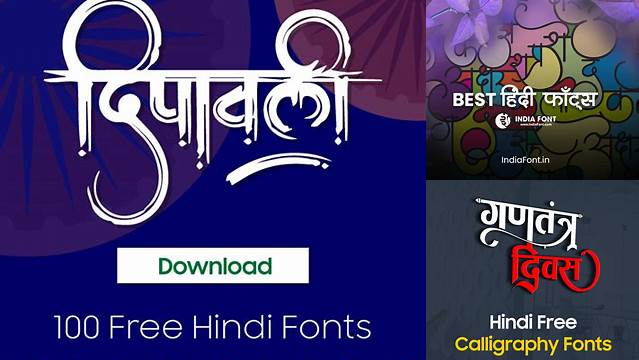
Download Free Hindi Fonts: Your Ultimate Guide
Hey guys! So, you're looking for some awesome free Hindi fonts to spice up your projects, right? You've come to the right place! Whether you're a designer, a student, or just someone who loves to dabble in Hindi, finding the perfect font can make all the difference. This guide is all about helping you find and download the best free Hindi fonts available. We'll explore a variety of styles, from traditional to modern, ensuring you find something that fits your needs. No more boring text! Let's dive in and discover the world of beautiful, free Hindi typography. Getting started with free Hindi fonts can seem daunting, but trust me, it's a breeze. I'll walk you through everything, from finding the fonts to installing them on your computer, and even using them in your favorite software. Get ready to transform your documents, presentations, and creative projects with the elegance and charm of Hindi script. Finding the right free Hindi fonts is like finding the perfect spice for your favorite dish – it adds flavor and personality! So let's get started, shall we? This comprehensive guide will help you find the best free Hindi fonts to suit your needs. We'll cover everything from where to find them, how to download them, and how to install them on your computer. I'll also share some tips on how to use these fonts effectively in your projects. Get ready to add a touch of elegance and creativity to your work with these fantastic free Hindi fonts! Let's get started, and I promise you'll be creating beautiful Hindi content in no time.
Top Free Hindi Fonts for Creative Projects
Let's take a closer look at some of the top free Hindi fonts you can download and use for your creative projects. There are several excellent options available, each with its own unique style and character. Mangal is a popular and widely used Hindi font. It's a TrueType font that comes pre-installed with many versions of Windows, making it readily accessible. It is a clean, legible font that is perfect for both body text and headings. It's a great choice for a wide variety of projects. Another great option is Kruti Dev. Kruti Dev fonts are extremely popular among designers and are widely used for various Hindi typing tasks. It has a traditional feel and is often used for official documents and publications. It's a well-established font that is great for creating a classic look. Other fonts to consider are Nirmala UI, and Arial Unicode MS, as well as many others which may fit your creative needs. The best free Hindi fonts for creative projects should depend on the context of your work. Do you need a formal font for a government document, a playful font for a children's book, or a stylish font for a modern design? Each font has its own personality, so choose one that complements your project. Remember to consider readability, style, and overall aesthetic when making your selection. Take the time to browse different fonts and find the perfect fit for your project. Be sure to explore and experiment with different combinations of free Hindi fonts. Happy designing!
Choosing the Right Hindi Font for Your Project
Choosing the right free Hindi fonts is crucial for the success of your project. The font you choose can significantly impact the readability, style, and overall aesthetic of your work. Here are some factors to consider when making your selection. First, think about the purpose of your project. Are you creating a formal document, a casual blog post, or a vibrant poster? The font you choose should align with the tone and style of your project. For example, a formal document might require a clean, traditional font, while a poster might benefit from a more playful or modern font. Readability is also essential. Make sure the font you choose is easy to read, especially if you're using it for body text. Avoid fonts that are too ornate or stylized, as they can be difficult to read for long stretches. Consider the target audience. Who are you trying to reach with your project? Choose a font that is appropriate for your target audience. For example, a font that is suitable for a children's book might not be the best choice for a professional business document. Experiment with different fonts. Don't be afraid to try out different free Hindi fonts to see what works best. Most design software allows you to preview text with different fonts, so you can easily compare and contrast them. Remember to consider the overall design of your project. The font should complement the other elements of your design, such as images, colors, and layout. Choosing the right Hindi font involves balancing functionality with aesthetics, so have fun with it!
Troubleshooting Common Font Installation Issues
Sometimes, installing free Hindi fonts can run into a few snags. Don't worry; most of these issues are easily fixable. Here's a look at some common problems and how to solve them. The most common issue is that the new font doesn't appear in your applications after installation. Usually, this can be fixed by restarting the applications you're using. Close and reopen Word, Photoshop, or any other program to make sure the new font is recognized. Another issue is that the font appears, but it doesn't display correctly. This may be because the font file is corrupted or not fully downloaded. Try downloading the font again from a different source, and then reinstall it. Make sure you extract all the files from the ZIP file before installing the font. If the font is still not working correctly, there might be a conflict with another font on your system. If you have multiple fonts with similar names, try disabling some of them to see if that solves the problem. Sometimes, fonts are not compatible with certain software or operating systems. Make sure the font is compatible with your version of Windows or macOS and with the software you're using. Check the font's documentation or website for compatibility information. Keep in mind that fonts can also cause issues if you're using an older version of an operating system or software. If you're still having trouble, consult the font's documentation or the website where you downloaded the font. If you've followed all these steps and are still facing problems, you might consider checking the system's font cache, which could also be a source of such problems. However, the installation process is usually very simple and hassle-free. By understanding these potential issues, you can ensure your free Hindi fonts work seamlessly. Have a great time working on these fantastic projects!
The Importance of Font Licenses for Free Hindi Fonts
Let's talk about the importance of font licenses when you're working with free Hindi fonts. Knowing the license of the font you're using is crucial to avoid any legal issues. Most free fonts come with a license that outlines the terms of use. This is usually a document that comes with the font files. Carefully read this document! The license will tell you whether you can use the font for personal or commercial purposes, if you need to give credit to the font designer, and if there are any restrictions on how you can use the font. Most of the free Hindi fonts that you'll find are licensed under the Open Font License (OFL) or a similar license. This typically means that you can use the font for both personal and commercial projects, and you are free to modify and distribute the font as long as you maintain the original license. However, it's always best to double-check the specific terms of the license before using the font. Some licenses might have restrictions on the types of projects you can use the font for or the number of times you can use it. Other licenses might require you to give credit to the font designer. Be sure to comply with all the terms of the license to avoid any legal problems. When in doubt, err on the side of caution. If you're unsure about the terms of a license, contact the font designer or refer to the license document. Remember, respecting font licenses helps support the designers who create these amazing free Hindi fonts. This way, you can contribute to the success of these talented artists.
Finding Hindi Fonts Compatible with Different Software
One important thing to consider is that not all free Hindi fonts work seamlessly with every piece of software. So, how do you make sure your fonts are compatible? Let's find out. Most of the time, the .ttf and .otf files will work perfectly fine across the board. These are the standard font file formats. However, you may encounter issues with some software, especially if you're using older or less common software. First, check the font's documentation or website. The designer might provide information about which software the font is compatible with. It's also good practice to test the font in your specific software before you commit to using it in a major project. Install the font and type some sample text to see if it displays correctly. If the font doesn't display correctly, there could be a compatibility issue. Try updating your software to the latest version, as updates often include improvements to font compatibility. Another possible solution is to try converting the font file format. There are online font converters that can convert .ttf files to .otf files, and vice versa. This can sometimes solve compatibility issues. If you're still having trouble, you can also search online for specific information about font compatibility with your software. You might find forums or tutorials that offer solutions to the problem. By ensuring that your chosen free Hindi fonts are compatible with your software, you'll avoid headaches and ensure that your projects look their best. Always remember that it's useful to select different fonts and test them on different software.
Free Hindi Fonts for Web Design and Digital Content
Want to add a touch of Hindi to your website or digital content? Using the right free Hindi fonts can make a massive difference. Here's how to choose and use these fonts for your web design projects. First, consider the font's readability. Web fonts need to be clear and easy to read, especially on smaller screens. Choose fonts that are designed for on-screen display. Avoid fonts that are too ornate or stylized, as they can be difficult to read on a website. Make sure that the font is web-safe. Web-safe fonts are fonts that are commonly installed on most computers. This means that they'll display correctly for most of your website visitors. Some of the web-safe Hindi fonts include Mangal and Arial Unicode MS. However, you can also use custom web fonts. Web fonts are fonts that are specifically designed for use on the web. They're usually in a format like .woff or .woff2. To use web fonts, you'll need to upload the font files to your website and use CSS to link to the fonts. There are several services that provide free web fonts, such as Google Fonts. Web fonts give you more flexibility in terms of font choices. When designing for the web, keep in mind that you need to consider the mobile-friendliness of your website. Your free Hindi fonts should be readable on mobile devices. Test your website on different devices and screen sizes to make sure the font displays correctly. Always keep in mind to use appropriate font sizes, line heights, and spacing to improve readability. The right fonts can truly elevate your website or digital content.
Creating Beautiful Hindi Typography: Tips and Tricks
Let's dive into some tips and tricks to create beautiful Hindi typography using your free Hindi fonts. Typography is about much more than just choosing a font. Here's how to elevate your designs! One of the key things is to pay attention to the kerning, leading, and tracking. Kerning is the space between individual characters, leading is the space between lines of text, and tracking is the overall spacing of a block of text. Adjusting these settings can dramatically improve the readability and visual appeal of your text. Choose the right font size. The font size should be appropriate for the context. For headings, use larger font sizes to make them stand out. For body text, use a font size that is easy to read. Consider the color of your text. The color should complement the background and other elements of your design. Make sure there is enough contrast between the text and the background to ensure readability. Experiment with different styles. Don't be afraid to use bold, italic, and other styles to add emphasis and visual interest. Combine different fonts. Use a variety of fonts to create a more dynamic and visually appealing design. Just be sure to keep the number of fonts to a minimum to avoid overwhelming the reader. Consider the overall layout of your design. The layout should be balanced and visually appealing. Use white space to create breathing room and improve readability. The beauty of Hindi typography depends on your taste and artistic inclination! By following these tips and tricks, you can transform your free Hindi fonts into stunning visual creations.
Free Hindi Fonts for Professional Documents and Publications
When it comes to professional documents and publications, selecting the right free Hindi fonts is crucial for conveying a sense of professionalism and readability. You want fonts that are clear, legible, and appropriate for the content. For professional documents, you should look for fonts that are clean and easy to read. Sans-serif fonts like Mangal are a good option, as they are modern and easy to read. Also, consider serif fonts, such as Arial Unicode MS, which are also good for body text because they have small strokes that guide the eye across the page. Make sure the font size is appropriate for the document. A common size for body text is 12 points. Use bold and italic sparingly, and only to highlight key information. Consistency is also key in professional documents. Use the same font and formatting throughout the document. Consider the overall layout. The layout should be neat and organized, with clear headings, subheadings, and spacing. Use a professional template, if possible, to make sure your document has a polished look. It's also important to choose a font that is appropriate for the type of document you're creating. For example, a formal report might require a more traditional font, while a marketing brochure might allow for a more modern font. When working with free Hindi fonts in professional contexts, always prioritize readability, clarity, and consistency. Remember, the font should serve to enhance the information, not distract from it. By choosing the right fonts and following these tips, you can create professional-looking documents and publications that communicate your message effectively.
Finding and Using Unicode Hindi Fonts
Let's talk about Unicode Hindi fonts. These are super important, especially if you want your text to display correctly across different devices and software. Unicode is a standard that assigns a unique number to every character, regardless of the platform, program, or language. This means that, when you use Unicode Hindi fonts, the text will render correctly everywhere. This is a huge advantage over older character encoding systems. When you search for free Hindi fonts, you'll often come across the term